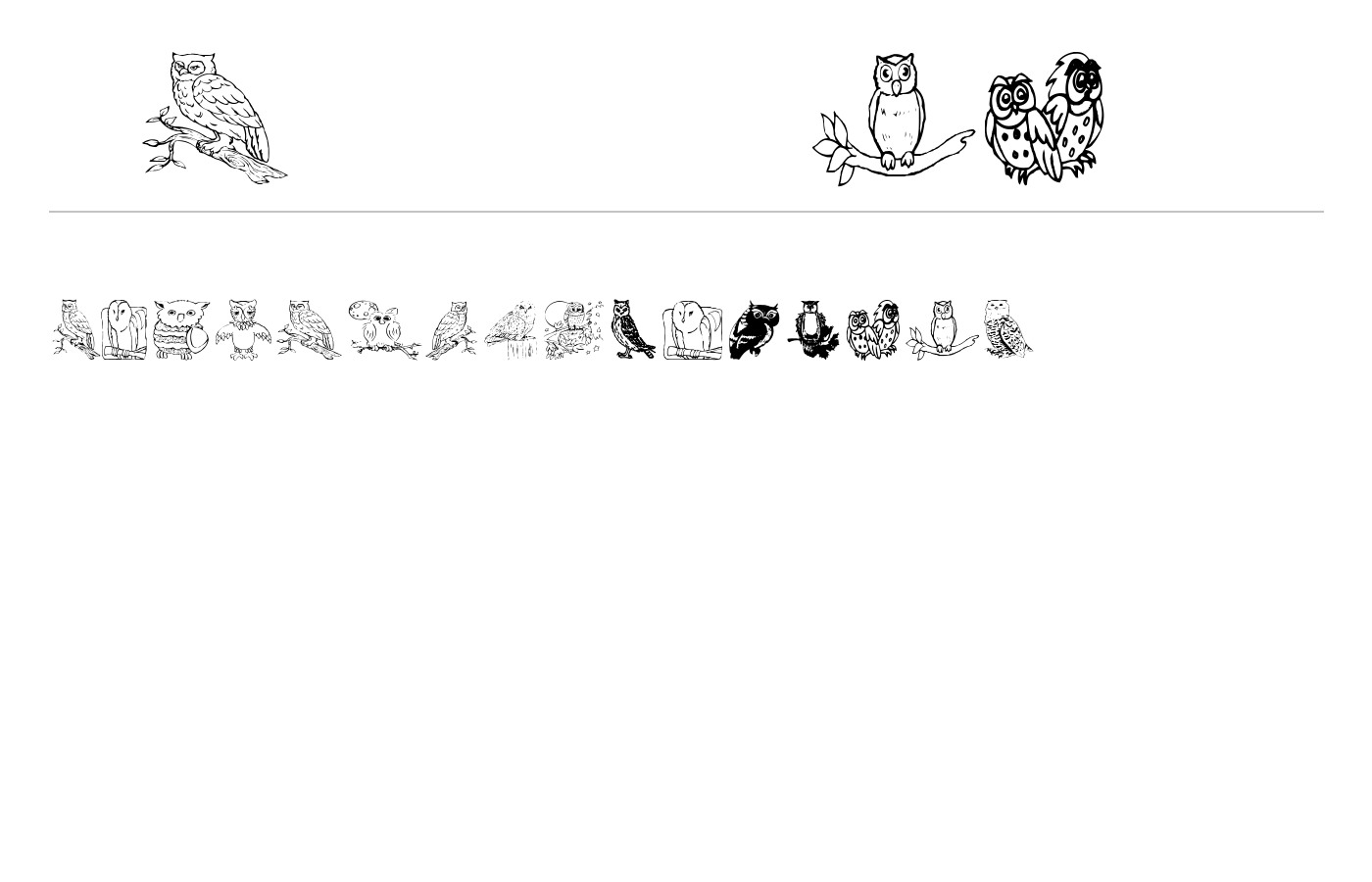
AEZ Owls for Traci is a decorative font featuring a charming collection of hand-drawn owl illustrations instead of traditional letters. This whimsical and playful design is perfect for creative projects, children’s books, or nature-themed branding where a unique, friendly, and artistic touch is desired. Its detailed line work and varied owl poses add personality and visual interest that work well for logos, invitations, and craft packaging.
AEZ Owls for Traci Font
About AEZ Owls for Traci Font